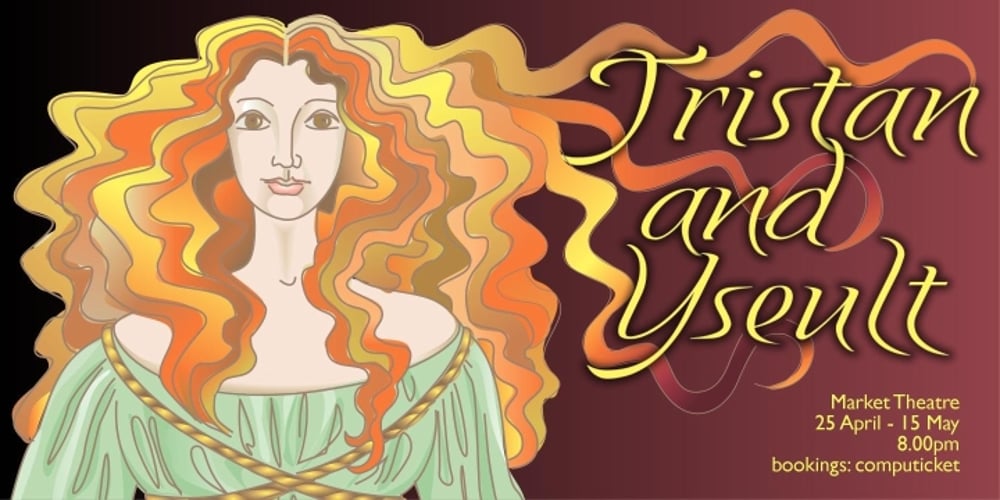
Yseult Font Family was designed by Anton Scholtz and published by Scholtz Fonts. Yseult contains 4 styles and family package options. Yseult is a ultra-romantic, elegant handwritten font, reminiscent of pre-Raphaelite beauties and classical paintings. It refers to the opera Tristan und Isolde (also spelt as Yseul, Isolda etc.) in three acts by Richard Wagner. The opera was based largely on the romance by Gottfried von Strassburg. Its design was influenced by Genevieve and, less directly, by Silver Dagger. Suggestions for use: – wedding stationery – greeting cards – valentines day media – beauty product media – lingerie tags – women’s magazine pages – classical music media – theatre posters The font is fully professional: carefully letterspaced and kerned. It contains over 235 characters – (upper and lower case characters, punctuation, numerals, symbols and accented characters are present). (It has all the accented characters used in the major European languages).